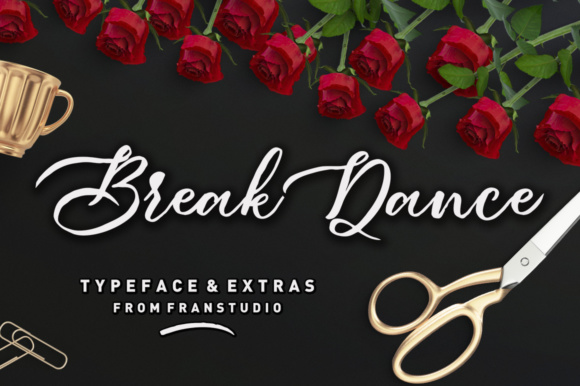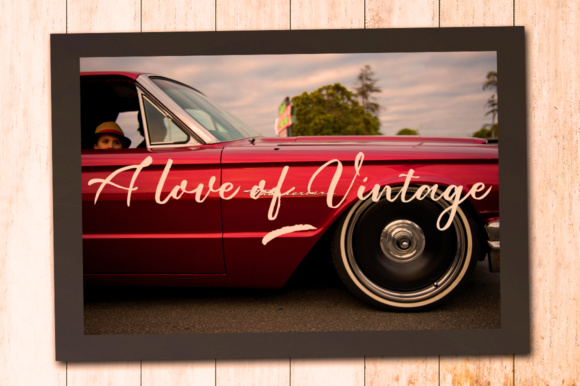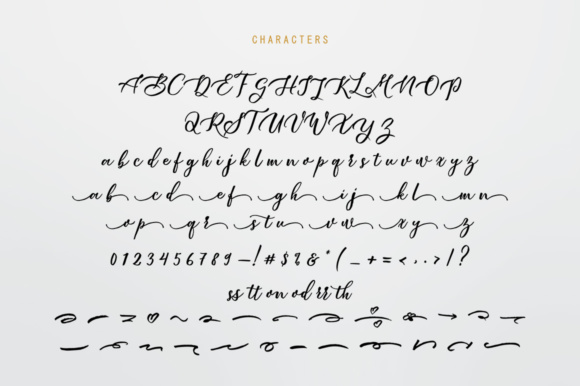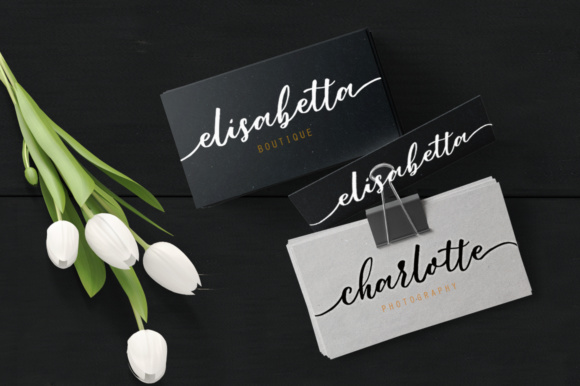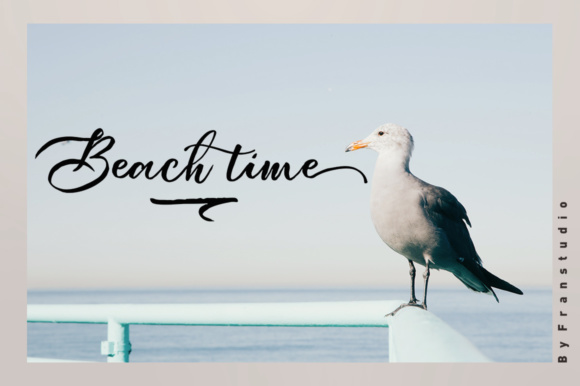
About Break Dance Font
The Break Dance is a modern calligraphy font with smooth lines and a varying baseline. It will give your design a classic and elegant touch. Break Dance can be used for various purposes such as: headings, signatures, logos, wedding invitations, and much more!